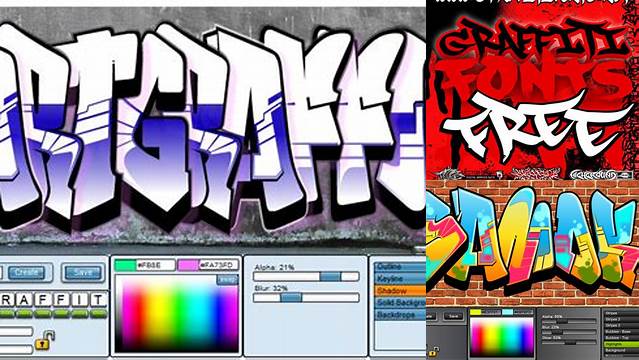
Hey guys! Ever wanted to add that raw, urban edge to your designs? Or maybe you’re looking to create some seriously cool artwork? Then you’ve come to the right place! Let’s dive into the world of graffiti font generators and explore how you can score some free downloads. Trust me, it’s easier than you think, and the results can be seriously awesome. We’ll be covering everything from what these generators are, where to find them, and how to make the most out of them. So, buckle up, and let’s get started!
What is a Graffiti Font Generator?
First things first, what exactly is a graffiti font generator? Well, think of it as a digital tool that lets you create text in a style that mimics real-life graffiti art. These generators offer a wide range of font styles, from bubble letters to wildstyle and everything in between. You can customize the text, size, color, and sometimes even add effects like shadows and outlines. The beauty of using a graffiti font generator is that you don't need to be a professional artist to achieve that authentic graffiti look. It’s perfect for posters, logos, social media graphics, and any other creative project where you want to add a touch of urban flair. You know, the kind of stuff that makes people stop and say, “Whoa, that’s cool!”
The coolest part about using a graffiti font generator is the sheer variety you get. Some generators offer a basic selection of fonts, while others boast a massive library with hundreds of different styles. This means you can really experiment and find the perfect font to match your vision. Plus, many generators allow you to preview your text in real-time, so you can see exactly how it will look before you commit to downloading anything. This is a huge time-saver and makes the whole process way more enjoyable. And let’s be honest, who doesn’t love playing around with different fonts and colors? It’s like being a kid in a candy store, but instead of sweets, you’re getting awesome fonts!
Why Use a Graffiti Font Generator?
So, why should you even bother with a graffiti font generator? There are tons of reasons, actually! For starters, it's a fantastic way to add a unique and eye-catching element to your designs. Graffiti fonts have a distinct personality that can really make your message stand out. Whether you're designing a poster for a local event or creating a logo for your brand, a well-chosen graffiti font can instantly grab attention. And let's face it, in today's crowded digital landscape, anything that helps you stand out is a win.
Another big advantage of using a graffiti font generator is the convenience. You don't need to spend hours trying to hand-letter each word or hire a professional artist. With a generator, you can create stunning graffiti text in just a few clicks. This is especially helpful if you're working on a tight deadline or have limited resources. Plus, many generators are completely free to use, which is a huge bonus. You can experiment with different fonts and styles without spending a dime, which means you can really let your creativity flow without worrying about the budget. It’s like having a personal graffiti artist at your fingertips, ready to bring your ideas to life.
30 Subheadings Exploring Graffiti Font Generators and Free Downloads
Here are 30 subheadings to explore the world of graffiti font generators and free downloads, each packed with content to give you the ultimate guide. Let's dive in!
1. Understanding the Appeal of Graffiti Fonts
Graffiti fonts have a raw, edgy appeal that resonates with various audiences. This section delves into the psychological and cultural reasons behind their popularity, exploring how they evoke feelings of rebellion, creativity, and urban authenticity. We'll discuss how graffiti art has evolved from street art to a mainstream design element, influencing everything from fashion to advertising. Understanding this appeal helps you effectively use graffiti fonts in your projects, ensuring they align with your message and target audience. For example, a graffiti font might be perfect for a skateboarding brand's logo, but less suitable for a high-end luxury product. The key is to grasp the underlying emotions and connotations that graffiti fonts carry, allowing you to harness their power in a meaningful way. Plus, we’ll look at some historical examples of graffiti fonts in popular culture, showing how they’ve been used to create iconic brands and campaigns.
We will also explore the versatility of graffiti fonts, highlighting their ability to convey different moods and tones. A bold, aggressive graffiti font might be ideal for a punk rock band's album cover, while a more whimsical, bubble-letter style could be perfect for a children's book. The flexibility of graffiti fonts makes them a valuable asset for any designer or creative professional. In this section, we'll also examine how different graffiti styles have emerged over time, from the early tagging styles of the 1970s to the intricate, mural-like pieces of contemporary graffiti art. This historical context provides a deeper appreciation for the art form and its cultural significance, allowing you to make more informed choices when selecting and using graffiti fonts in your own work. Ultimately, understanding the appeal of graffiti fonts is about recognizing their power to communicate beyond words, adding a layer of emotion and attitude to your designs.
We'll discuss the importance of creating a clear and concise message, and how to use graffiti fonts to highlight key information. We'll also explore the use of contrast and other design principles to create visual hierarchy and draw the viewer's eye. In this section, we'll delve into the use of imagery in graffiti posters, and how to effectively integrate it with typography. We’ll also share some real-world examples of successful graffiti posters, analyzing the design choices and strategies that contributed to their effectiveness. The goal is to provide you with a comprehensive toolkit for creating graffiti posters that are both visually stunning and strategically sound, helping you promote your events, products, and services with maximum impact.